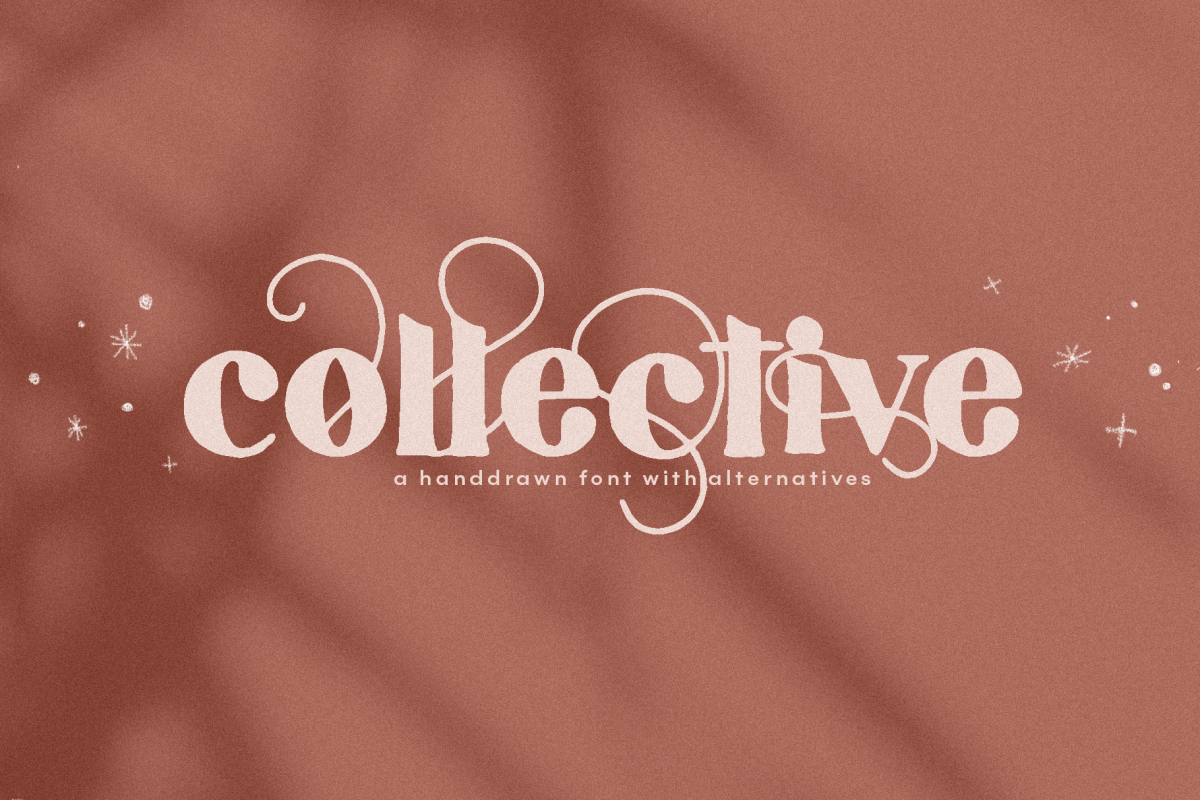
Collective - A Hand-Drawn Serif Font
Collective is a hand-drawn serif font with a modern, messy look.
Collective comes with a full set of capital & lowercase alternative swash letters.
There are so many different looks that you can create with this font!